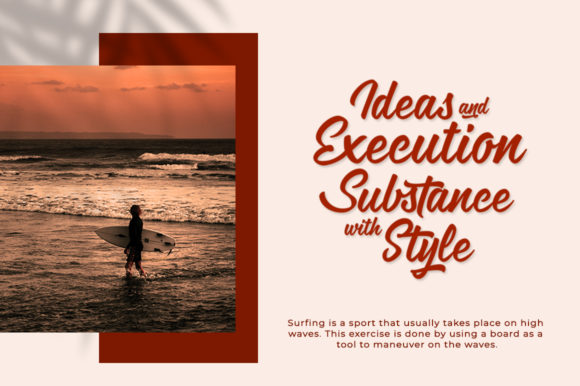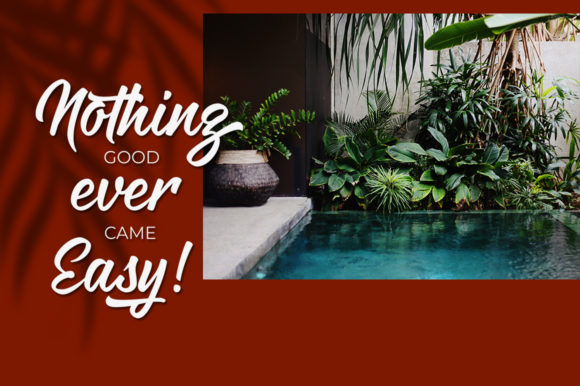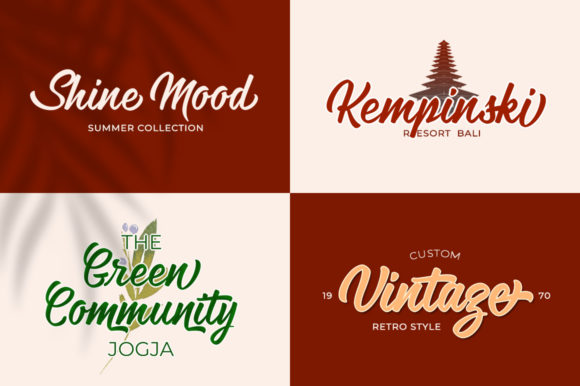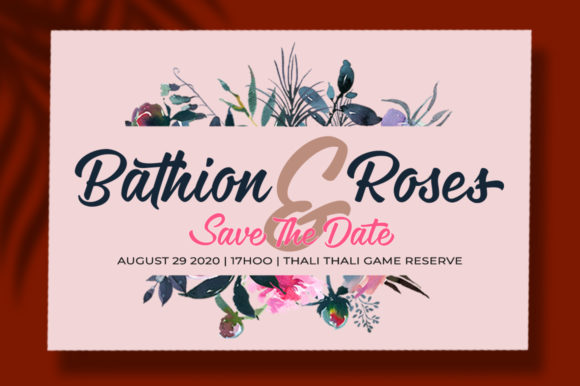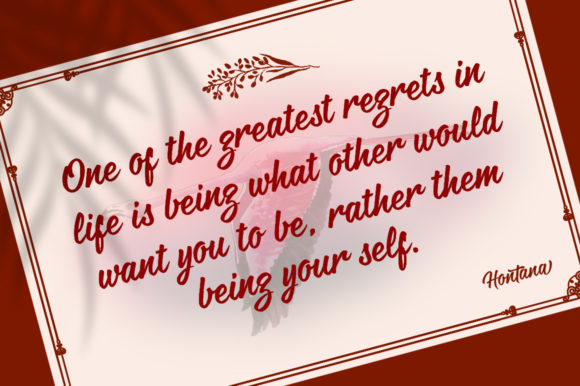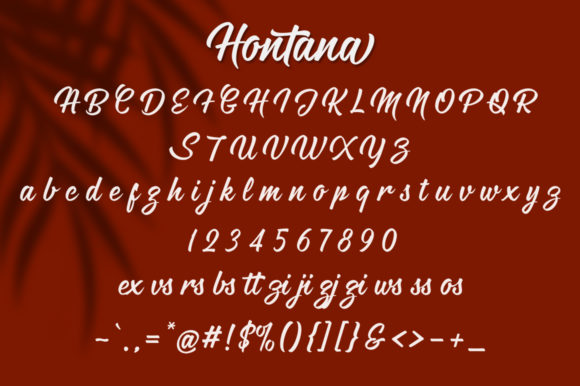
Introduction to Hontana Font
Have you ever stumbled upon a beautiful handwritten font that instantly sparks a creative idea for your next project? For designers, finding the perfect font can be a game-changer. It’s that moment when the wheels start turning, and your imagination runs wild. You see it, you love it, and you can’t wait to bring it to life.
That’s exactly what the Hontana Font does – it ignites creativity and makes any design project a true masterpiece. This adorable handwritten font is a treasure trove of inspiration, perfect for adding a personal touch to your Instagram posts, calligraphy scripts for DIY projects, or even as a design resource for your next big campaign.
Key Features of Hontana Font
- High-quality, unique design ideal for creative projects, including logos, posters, and brochures.
- Perfect for designers seeking a distinctive and creative font to elevate their projects.
Honest Review: Hontana Font
As a designer, I’m always on the lookout for high-quality design resources that can elevate my creative projects. Recently, I stumbled upon the Hontana Font, and I’m excited to share my honest review with you.
Limitations: ⚠️ While the Hontana Font is a great resource, it does have some limitations. The font may not be suitable for use on a transparent background, as the characters may not show up clearly. Additionally, the font may not be as versatile as some other design resources, making it more suited for specific creative projects.
- Wide range of styles
How to Use Hontana Font
Getting Started with Hontana Font
Tips for Getting the Most Out of Hontana Font
To get the most out of the Hontana Font, experiment with different font sizes, colors, and combinations with other design elements. You can also use it in conjunction with a transparent background to create a sense of depth and dimension.
Common Use Cases for Hontana Font
The Hontana Font is suitable for a wide range of creative projects, including branding, marketing materials, and editorial content. Its high-quality design makes it an excellent choice for designers and non-designers alike.